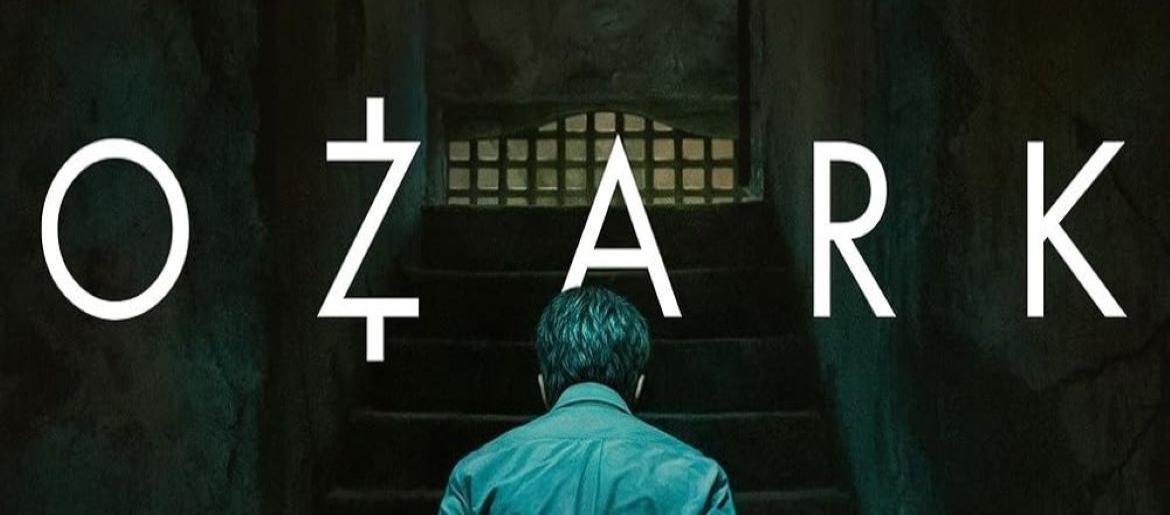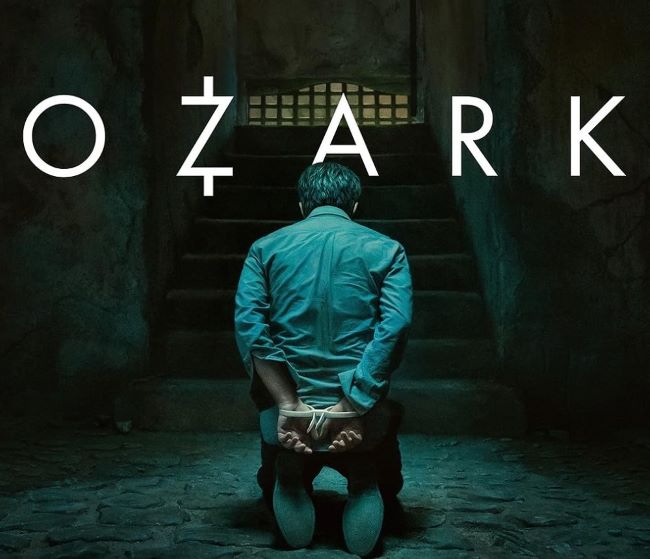
The Ozark font mirrors the show’s dark and moody atmosphere with a minimalist yet haunting style. The logo for Ozark uses Avenir Next, a geometric sans-serif typeface designed by Adrian Frutiger and Akira Kobayashi. Its clean, modern lines create a sense of simplicity, but the way the letters are spaced and stylized in the series gives it an eerie, unsettling edge.
Ozark Font
ozark font
What stands out about the Ozark font is its clever use of symbols in place of certain letters—like the crosshair, money sign, or other subtle graphics woven into the text. This adds layers of meaning, hinting at themes of crime, danger, and survival without saying a word. It’s understated, but it pulls viewers into the tension of the story before the first scene even begins.